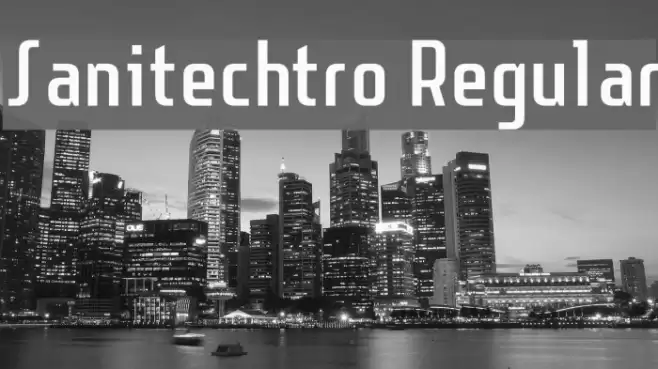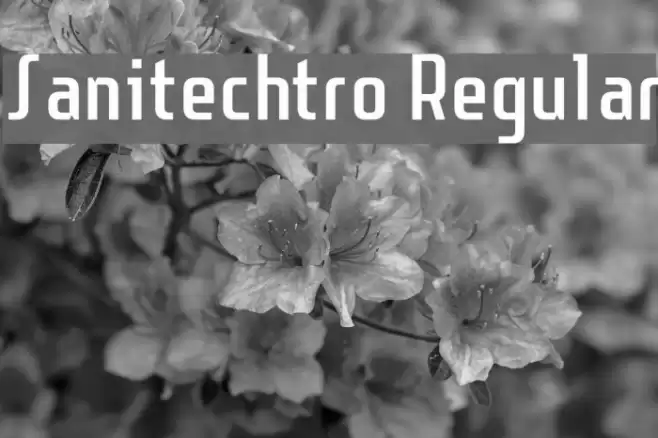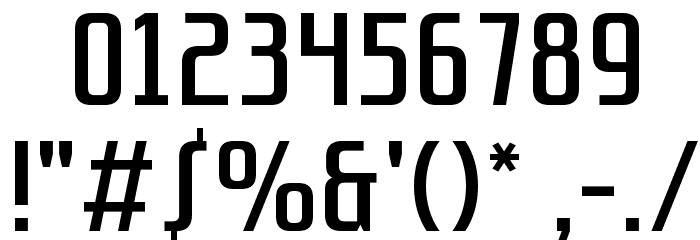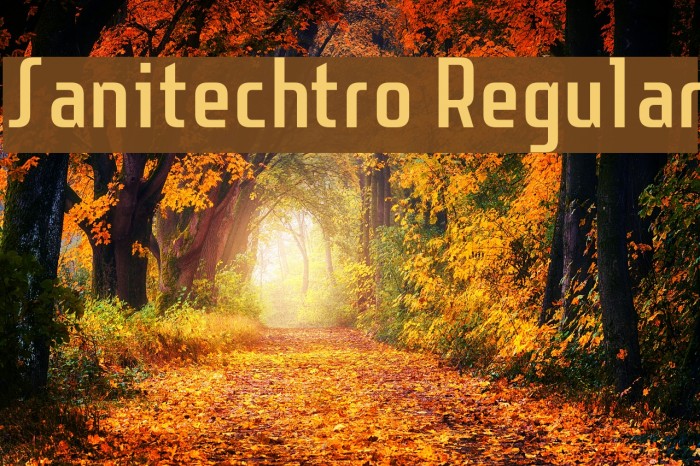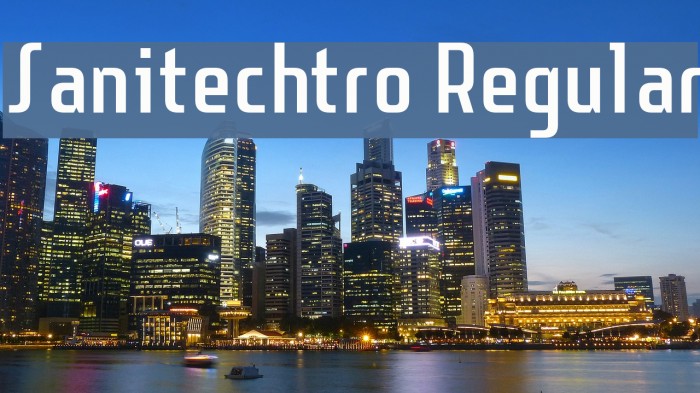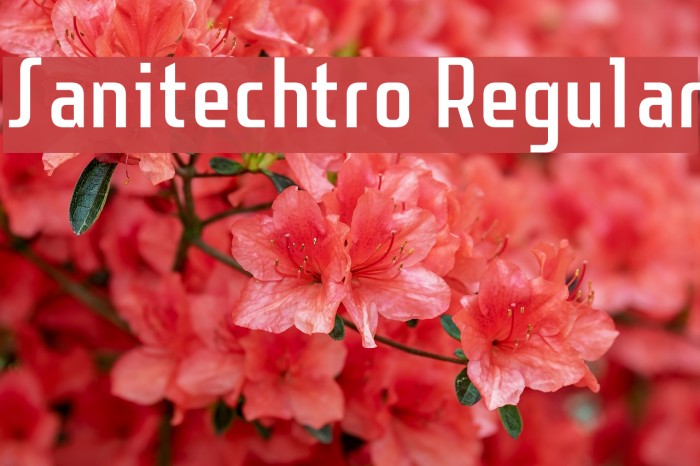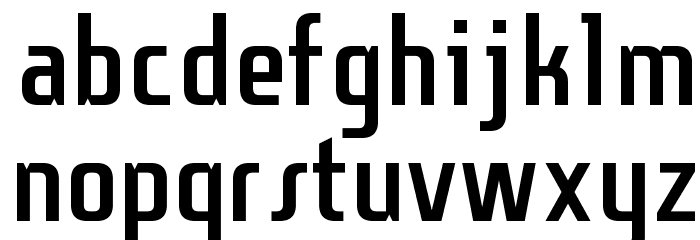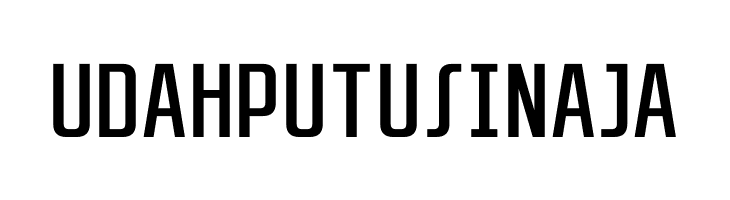
Sanitechtro Regular Font
Sanitechtro Regular Description
This typeface features a modern and clean design with a geometric structure. The characters are uniform and consistent, providing a sleek and professional appearance. The uppercase letters are bold and assertive, while the lowercase letters maintain a balanced and approachable look. The numerals are clear and easy to read, making them suitable for various applications. Special characters are well-integrated, enhancing the font's versatility. The overall style is contemporary, making it ideal for digital and print media.
A modern, geometric typeface with a clean and professional look from Uncategorized fonts.
- Proposed Projects: Ideal for branding, digital interfaces, advertising, and editorial design.